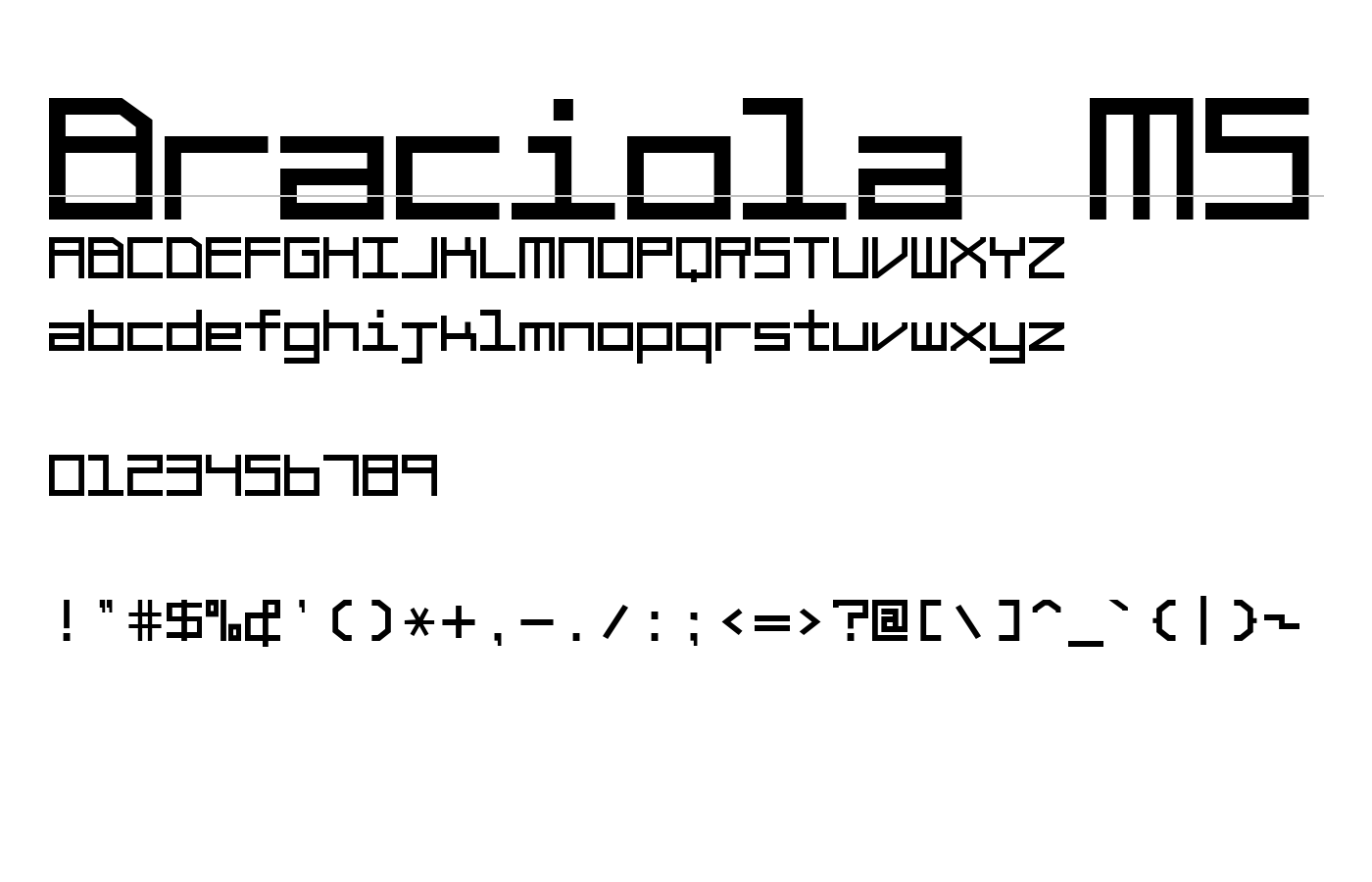
Braciola MS is a modern, geometric sans serif font with a distinctive angular and technical appearance. Its consistent line weight and square shapes give it a clean, digital feel, making it ideal for futuristic, tech-inspired branding, digital interfaces, and headlines that need a sharp, innovative look. This font works best in contexts where a modern, cutting-edge style is desired, offering clarity and a unique personality without sacrificing readability.
Braciola MS Font
About Braciola MS Font
| Designer | Francesco Canovaro |